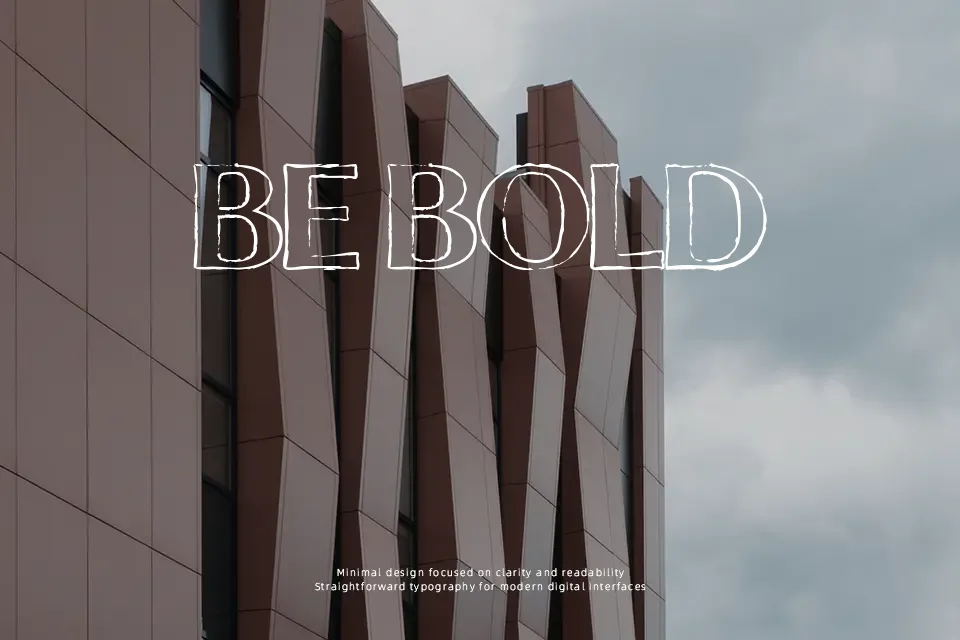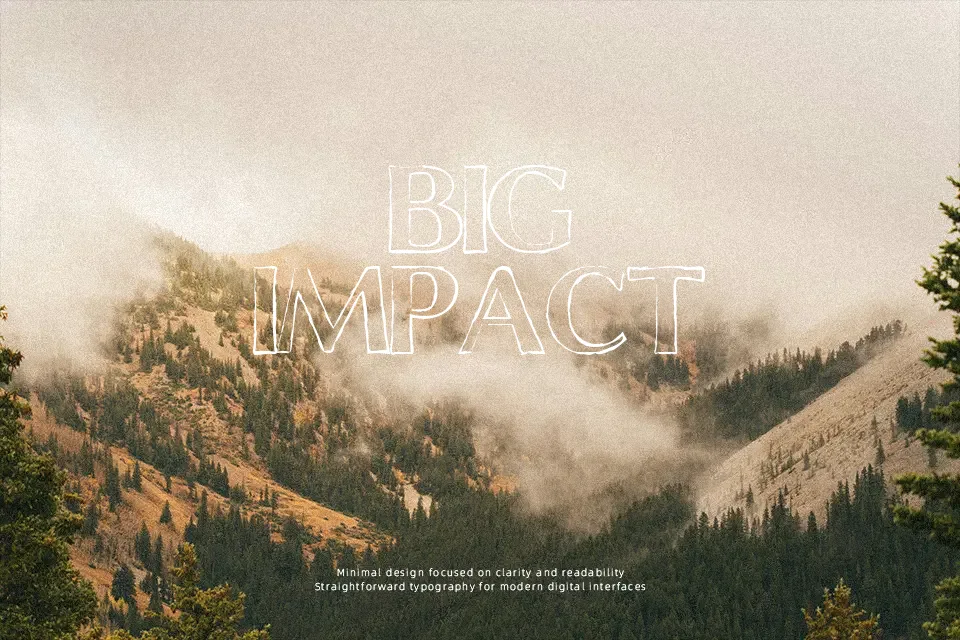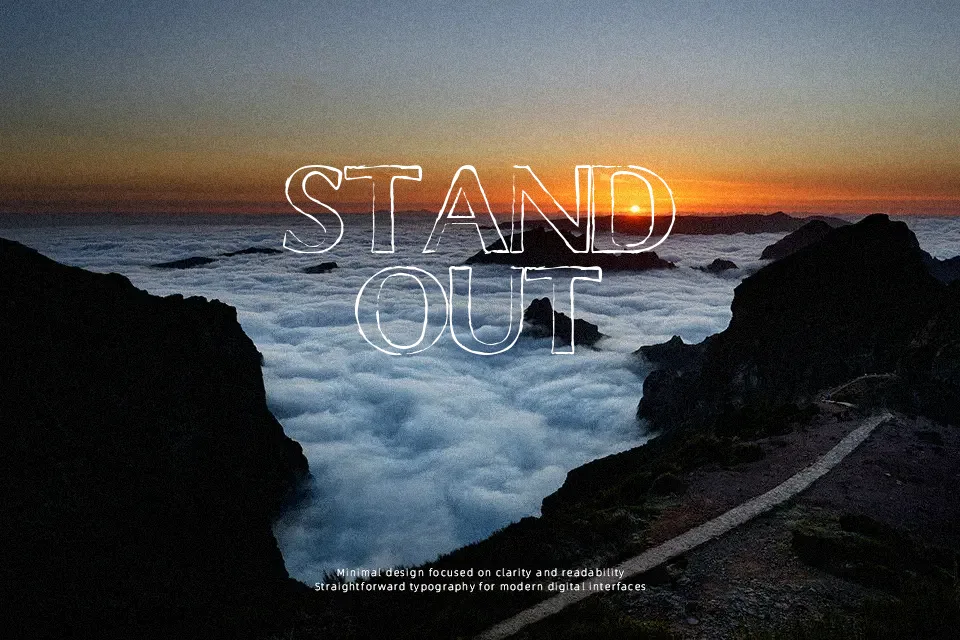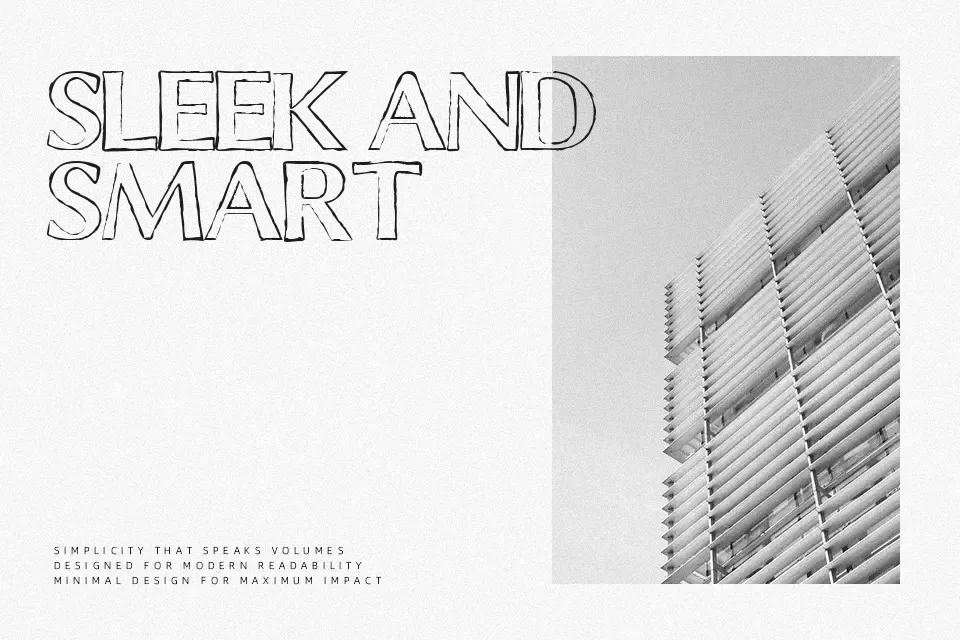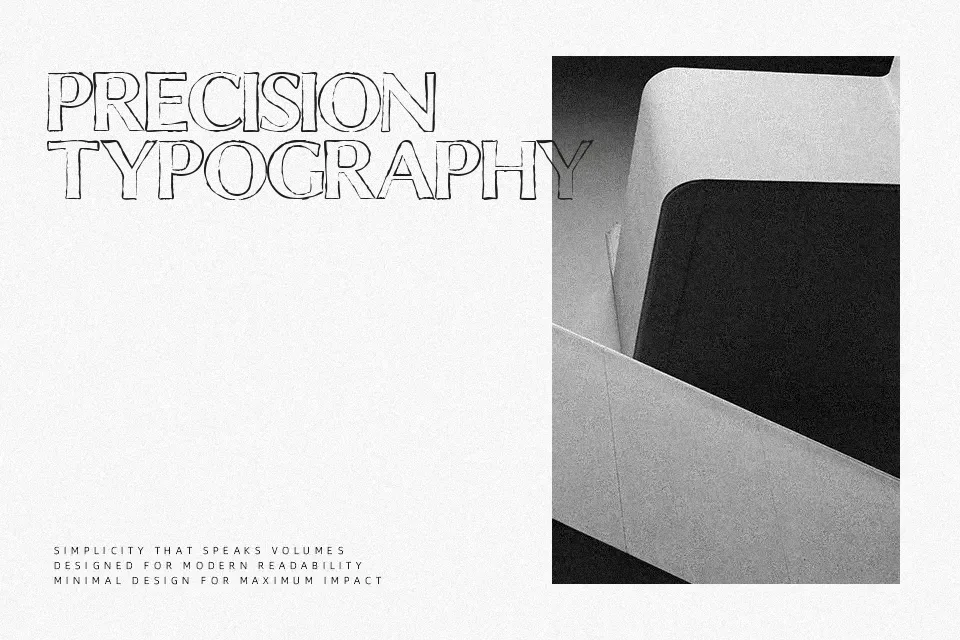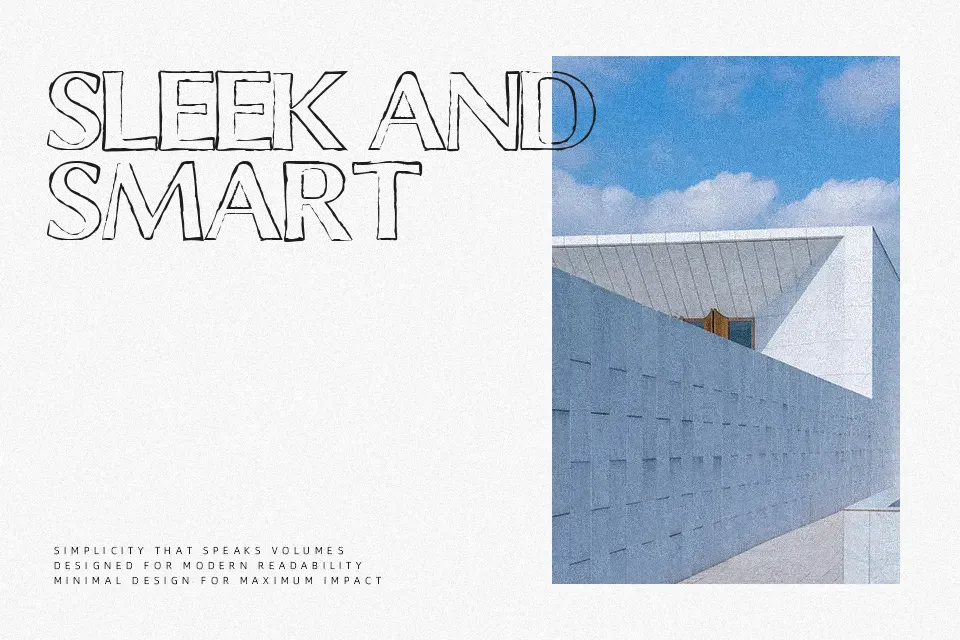
Chalk Line Outline Font
Designed by JLH Fonts
Chalk Line Outline Font features open contour strokes that trace a clean sans-serif skeleton with a hand-sketched chalk texture. The letterforms maintain balanced proportions and moderate character spacing, allowing individual glyphs to stand out clearly in headline settings. Each stroke displays slight irregularities along the perimeter, adding organic grit while preserving the underlying geometric structure. Readability remains sharp at large display sizes, making the typeface well-suited for chalkboard menus, event posters, and bold apparel graphics. However, the delicate outline styling loses structural definition in smaller body text. Dense multi-line paragraphs become difficult to scan comfortably as the open centers blend into surrounding layouts.
– Restaurant chalkboard menus
– Promotional event posters
– Rustic packaging labels
– Cafe headline signage
– Long paragraph body text
– Small mobile interface captions
– Dense editorial layouts
– Technical data spreadsheets
Perfect for advertising, headline, and packaging, with a artistic and decorative style.